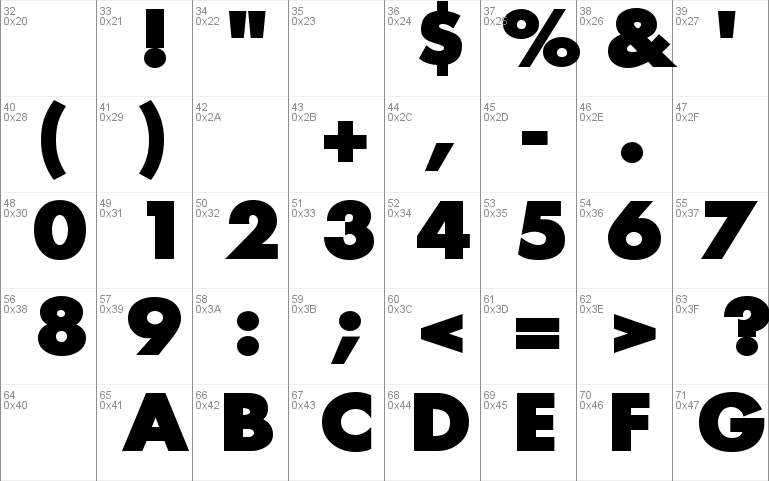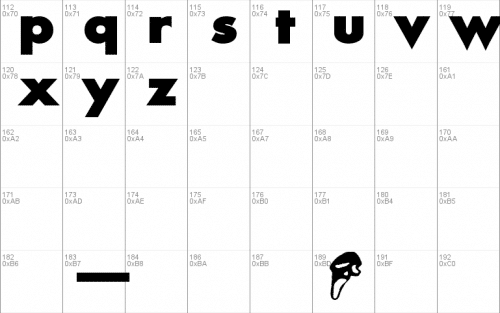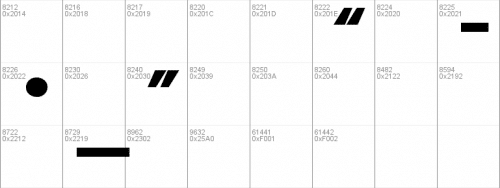
Hello! Scream Font is a remake of the font “RsFutura”, which look almost like the Scream font. I’ve made it a little bit bolder and made some few fixes, including the Scream-look on the M and the V’s.
- Designer: Samuel Park